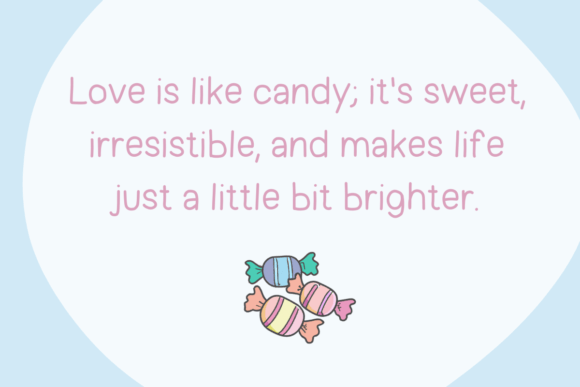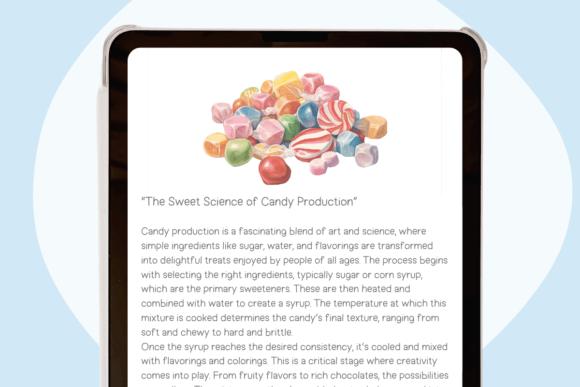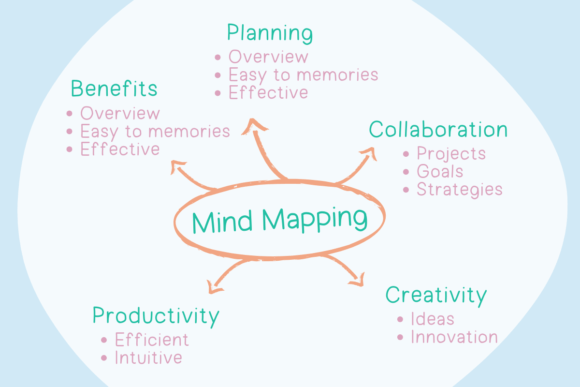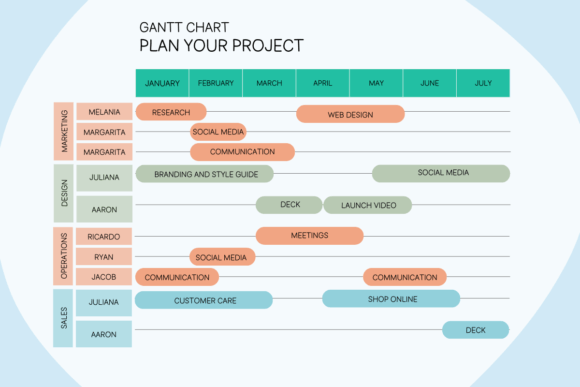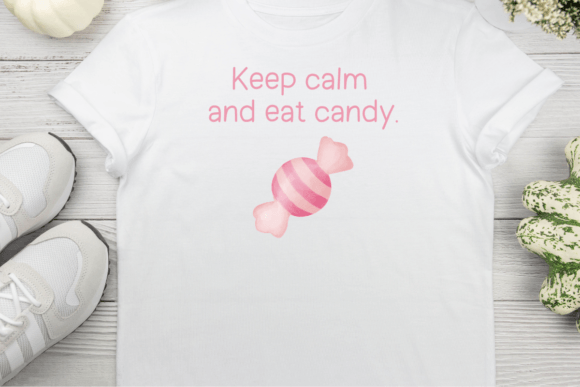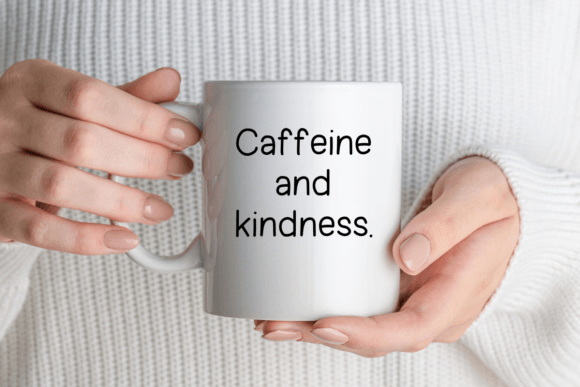
Candy Neat Font: The Perfect Handwritten Font for Digital Creations
Are you a designer, crafter, or digital artist looking for a font that can add a touch of sweetness to your projects? Look no further than Candy Neat Font, a simple and cute handwritten font that’s perfect for digital note-taking and a wide range of creative endeavors. In this article, we’ll explore the features and benefits of Candy Neat Font, and show you how it can elevate your designs, blogs, logos, and more.
What is Candy Neat Font?
Candy Neat Font is a modern handwritten font that’s designed to be both elegant and approachable. Its clean lines, subtle curves, and consistent lettering make it easy to read and visually appealing. The font’s simplicity and cuteness make it perfect for a variety of projects, from digital note-taking to creative designs.
Versatility of Candy Neat Font
One of the best things about Candy Neat Font is its versatility. It’s a font that can be used in a wide range of projects, including:
- Procreate designs: Add a personal touch to your Procreate artwork with Candy Neat Font. Use it to create titles, captions, or quotes that complement your designs.
- Blog posts: Make your blog posts more engaging and visually appealing with Candy Neat Font. Use it to create headings, subheadings, or even entire paragraphs.
- Logos and branding: Create a unique and memorable logo for your brand with Candy Neat Font. Its simplicity and elegance make it perfect for creating a professional-looking logo.
- Digital planners: Add a personal touch to your digital planners with Candy Neat Font. Use it to create headings, titles, and labels that make your planners more functional and visually appealing.
- Invitations and greeting cards: Create beautiful and heartfelt invitations and greeting cards with Candy Neat Font. Its cuteness and simplicity make it perfect for special occasions.
- Photo albums: Make your photo albums more personal and engaging with Candy Neat Font. Use it to create captions, quotes, or titles that complement your photos.
Benefits of Using Candy Neat Font
Candy Neat Font offers a range of benefits that make it a popular choice among designers, crafters, and digital artists. Some of the benefits include:
- Ease of use: Candy Neat Font is easy to use and works seamlessly with most design software, including Procreate, Adobe Illustrator, and Canva.
- Customizability: Candy Neat Font is highly customizable, allowing you to adjust the font size, color, and style to fit your project’s needs.
- Readability: Candy Neat Font is highly readable, making it perfect for digital note-taking, blog posts, and other projects where readability is important.
- Uniqueness: Candy Neat Font has a unique and distinctive style that sets it apart from other fonts. Use it to add a personal touch to your projects and make them stand out.
Tips for Using Candy Neat Font
Here are some tips for getting the most out of Candy Neat Font:
- Experiment with font sizes: Candy Neat Font works well in a range of font sizes, from small to large. Experiment with different font sizes to find the one that works best for your project.
- Play with colors: Candy Neat Font looks great in a range of colors, from bright and bold to soft and pastel. Experiment with different colors to find the one that complements your project’s design.
- Mix and match: Don’t be afraid to mix and match Candy Neat Font with other fonts. Use it to create headings, subheadings, or captions that complement your project’s design.
| Author | DrextorLetters |
Candy Neat Font is a versatile and adorable handwritten font that’s perfect for digital note-taking, creative designs, and a wide range of projects. Its simplicity, elegance, and readability make it a popular choice among designers, crafters, and digital artists. With its ease of use, customizability, and uniqueness, Candy Neat Font is a must-have font for anyone looking to add a personal touch to their projects. So why not give it a try and see how it can elevate your designs, blogs, logos, and more?